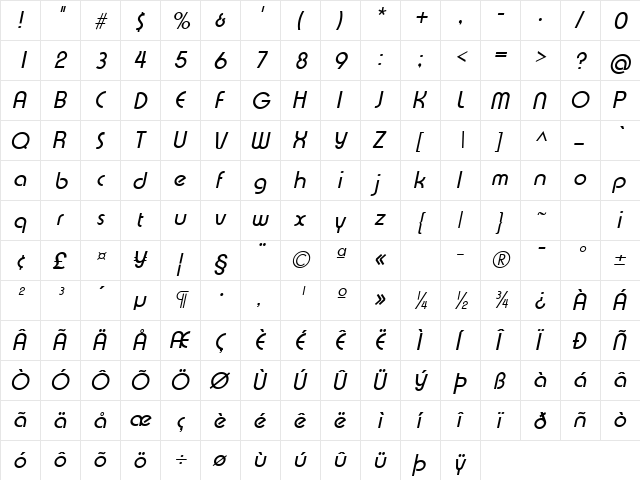
GE Expression Italic
Design Context for GE Expression Typeface
GE Expression is a composed and adaptable typeface that performs quietly and consistently across a wide range of design contexts. The dynamic lean of this cut emphasises speed and emphasis in any layout.
Pro Tip: Use GE Expression for emphasis, pull quotes, and subheadings where its slanted energy can add rhythm to the layout.